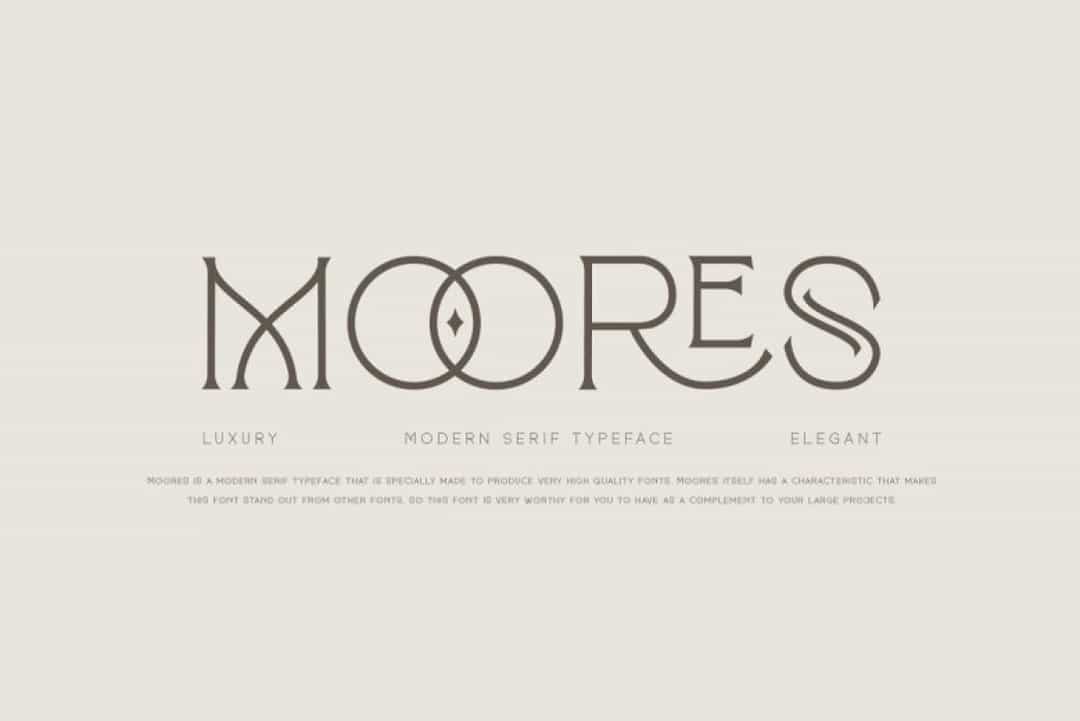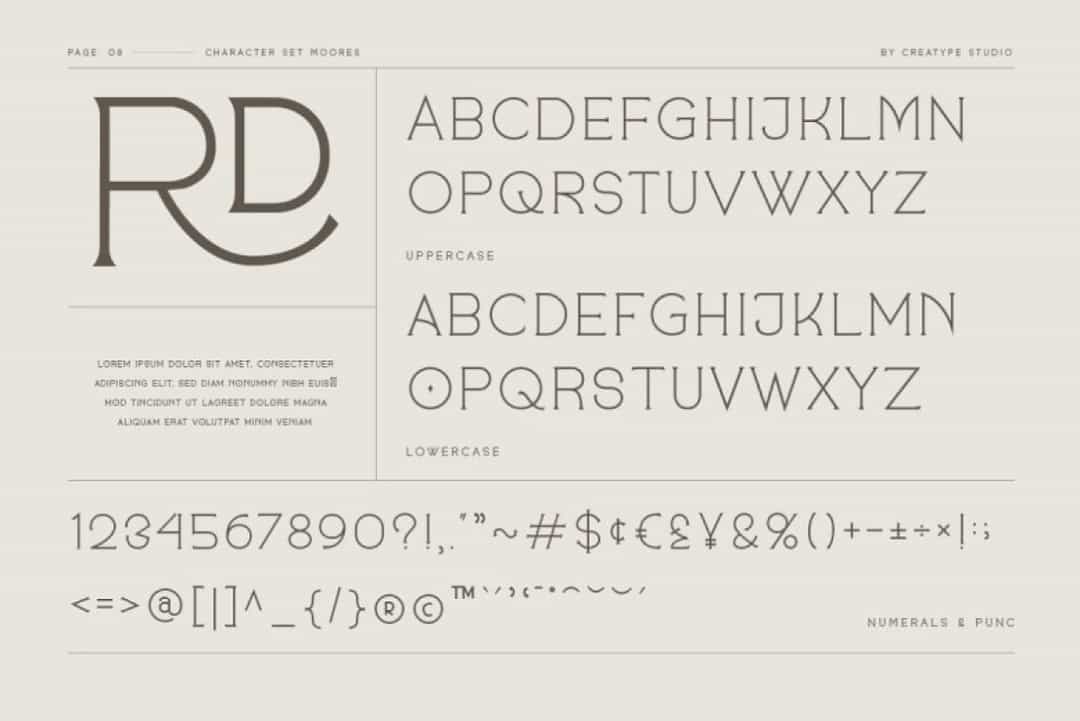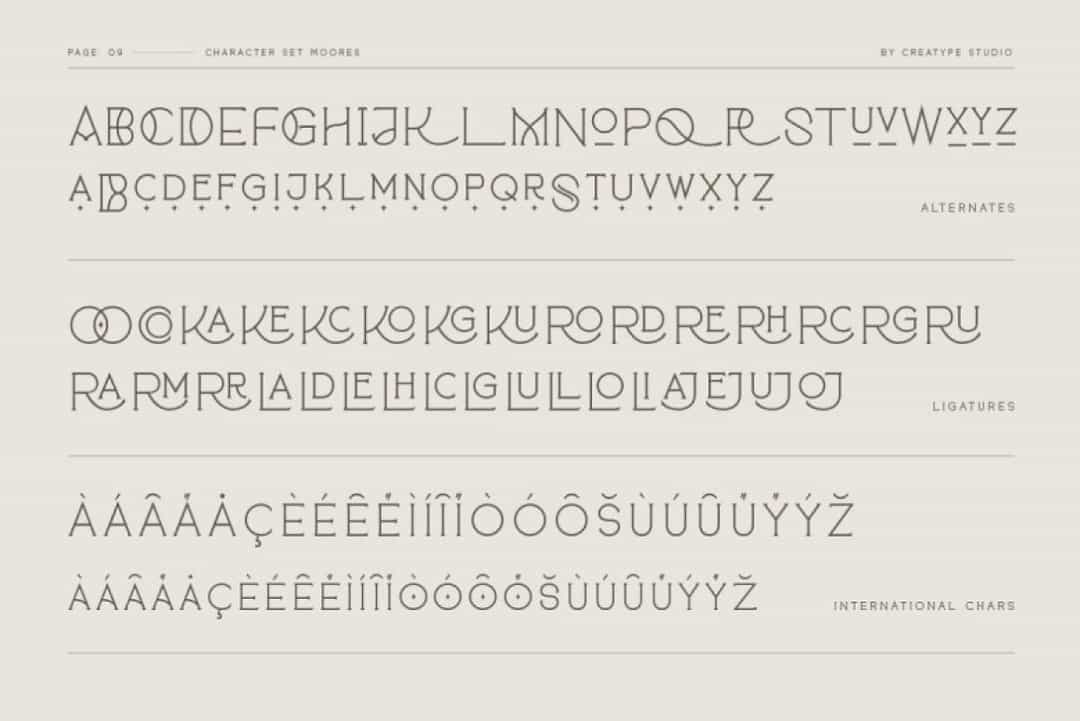
Moores is a contemporary serif typeface known for its geometric designs. Moore’s typeface is beautifully feminine and magically appealing – ideal for fashion logos, beauty products, fashion magazines and many more uses.